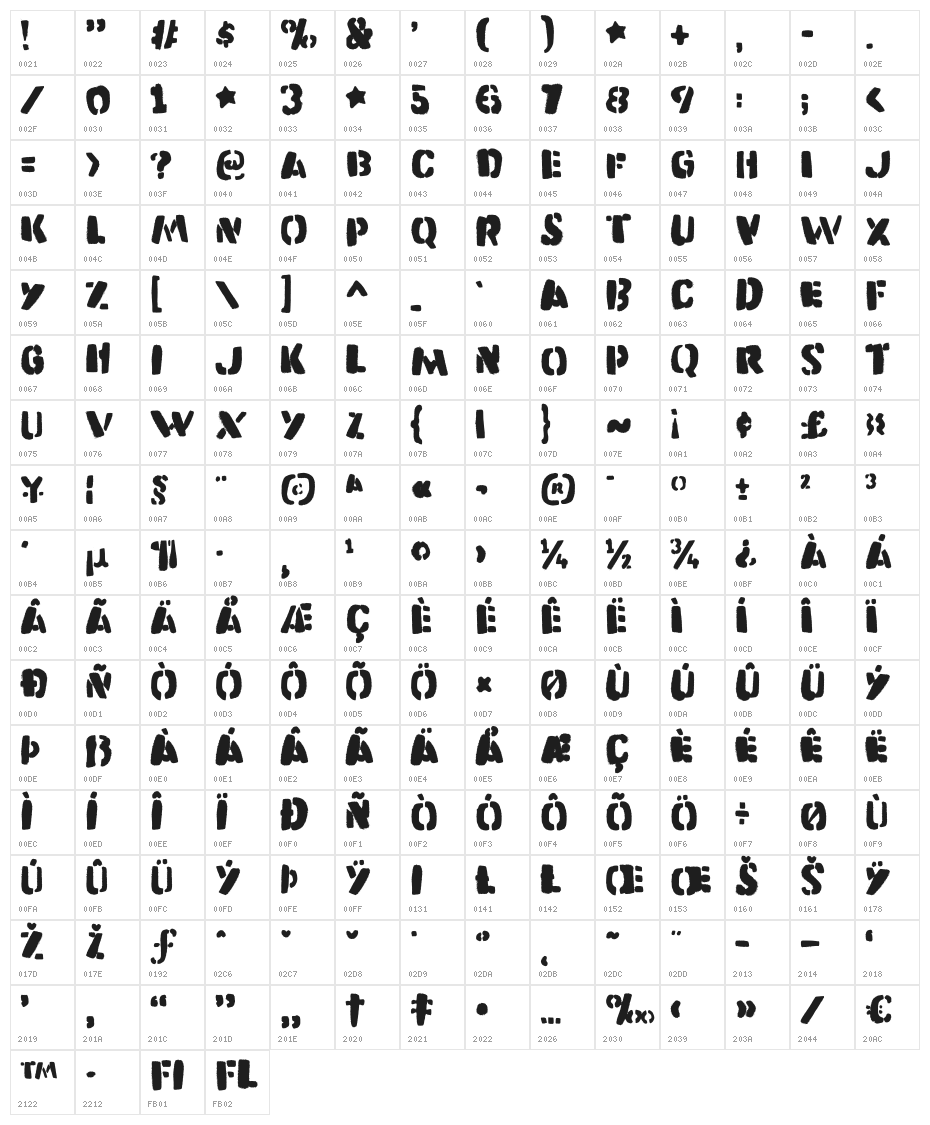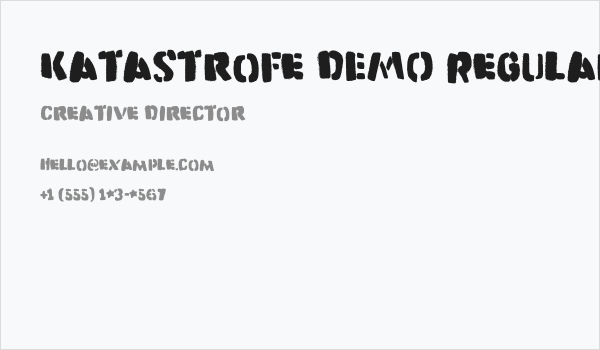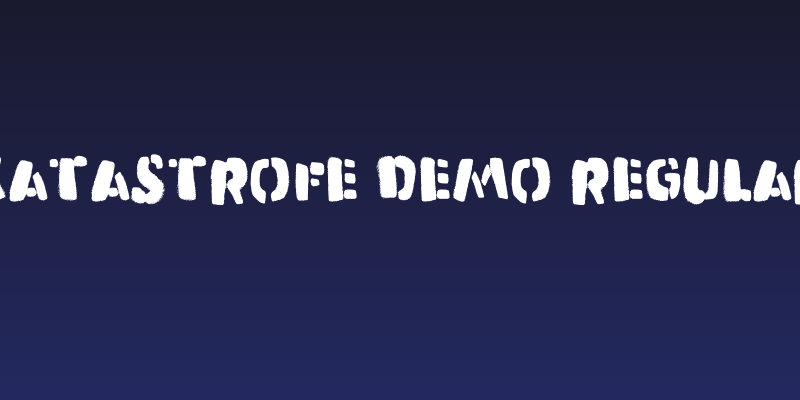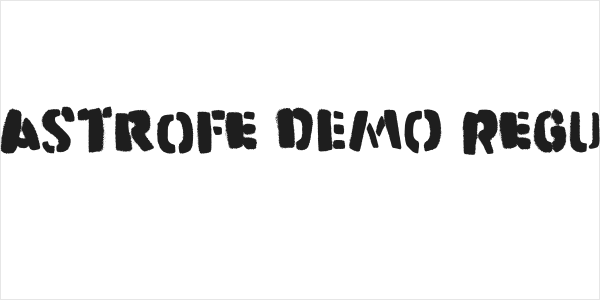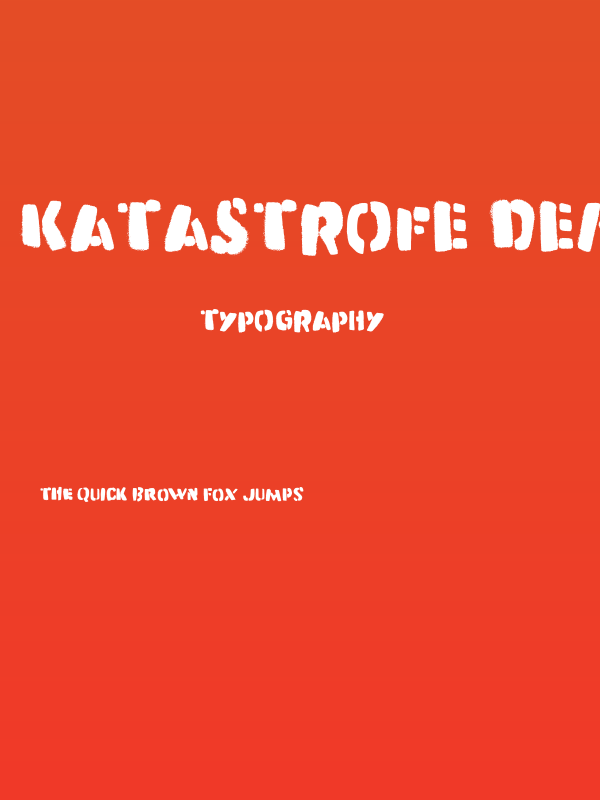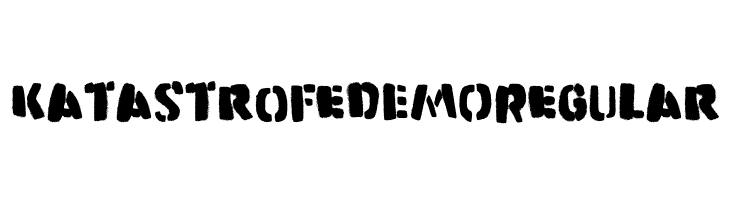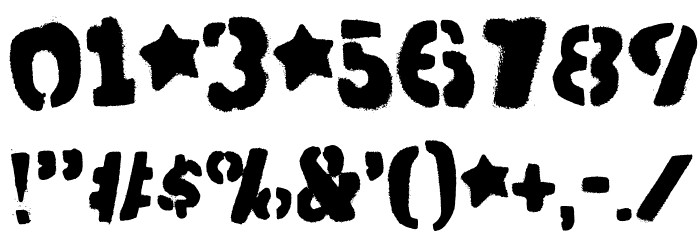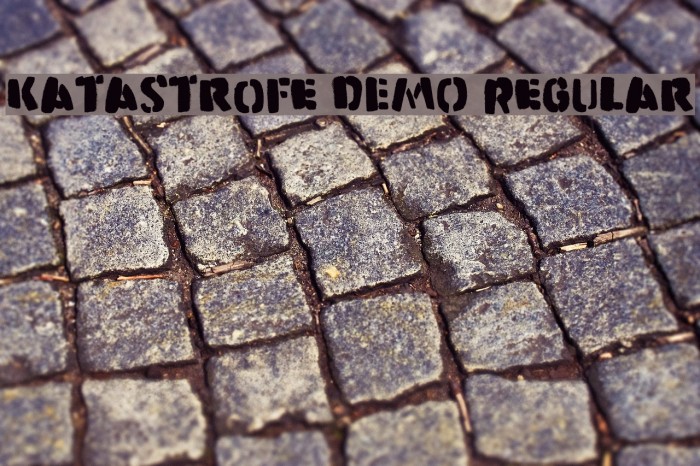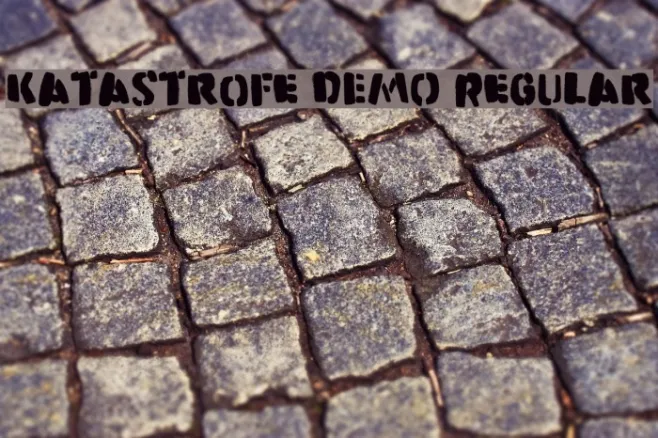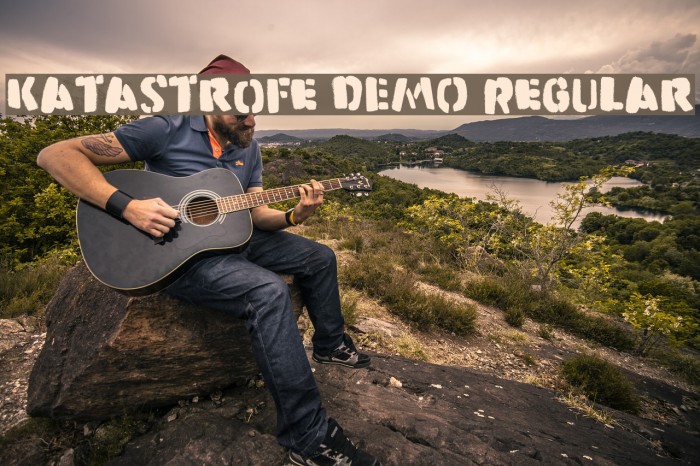
Katastrofe DEMO Regular Font
Katastrofe DEMO Regular Description
This font features a bold, distressed style with a stencil-like appearance. The characters are heavily textured, giving them a rugged and edgy look. The uppercase and lowercase letters maintain a consistent width, while the numbers and special characters follow the same design ethos. The font's unique style is reminiscent of graffiti or street art, making it stand out with its bold presence. The rough edges and uneven strokes add to its dynamic and energetic feel, making it ideal for projects that require a strong visual impact.
| Proposed Projects | Ideal for urban-themed designs, posters, album covers, streetwear branding, and any project needing a bold, edgy aesthetic. |